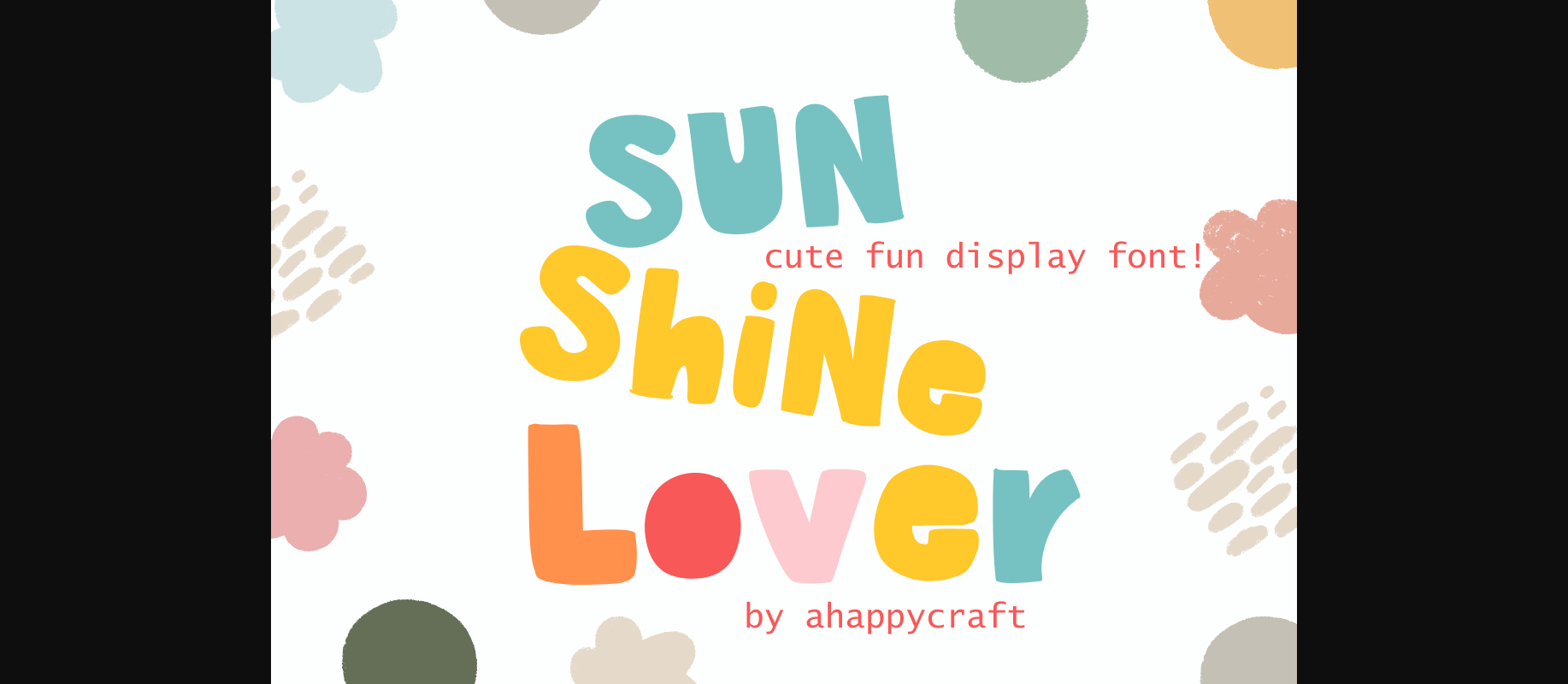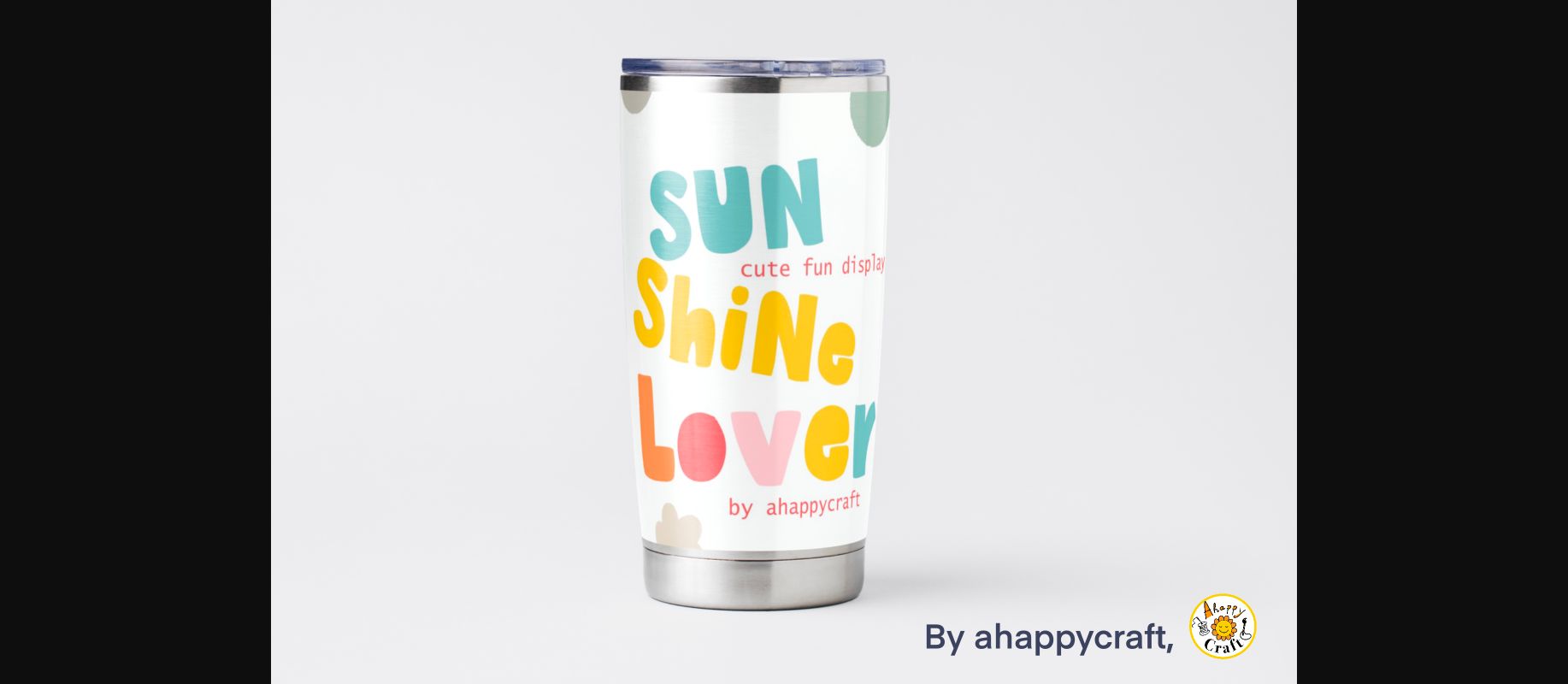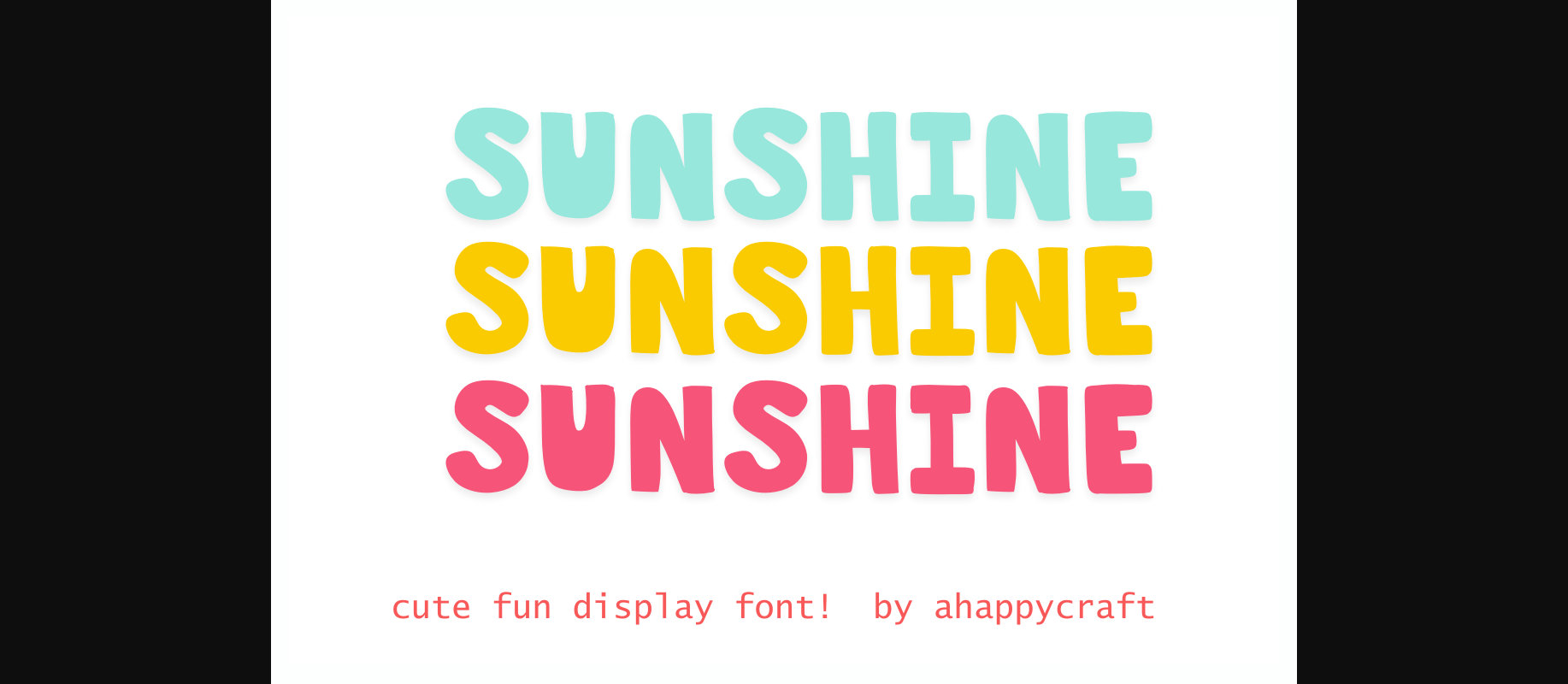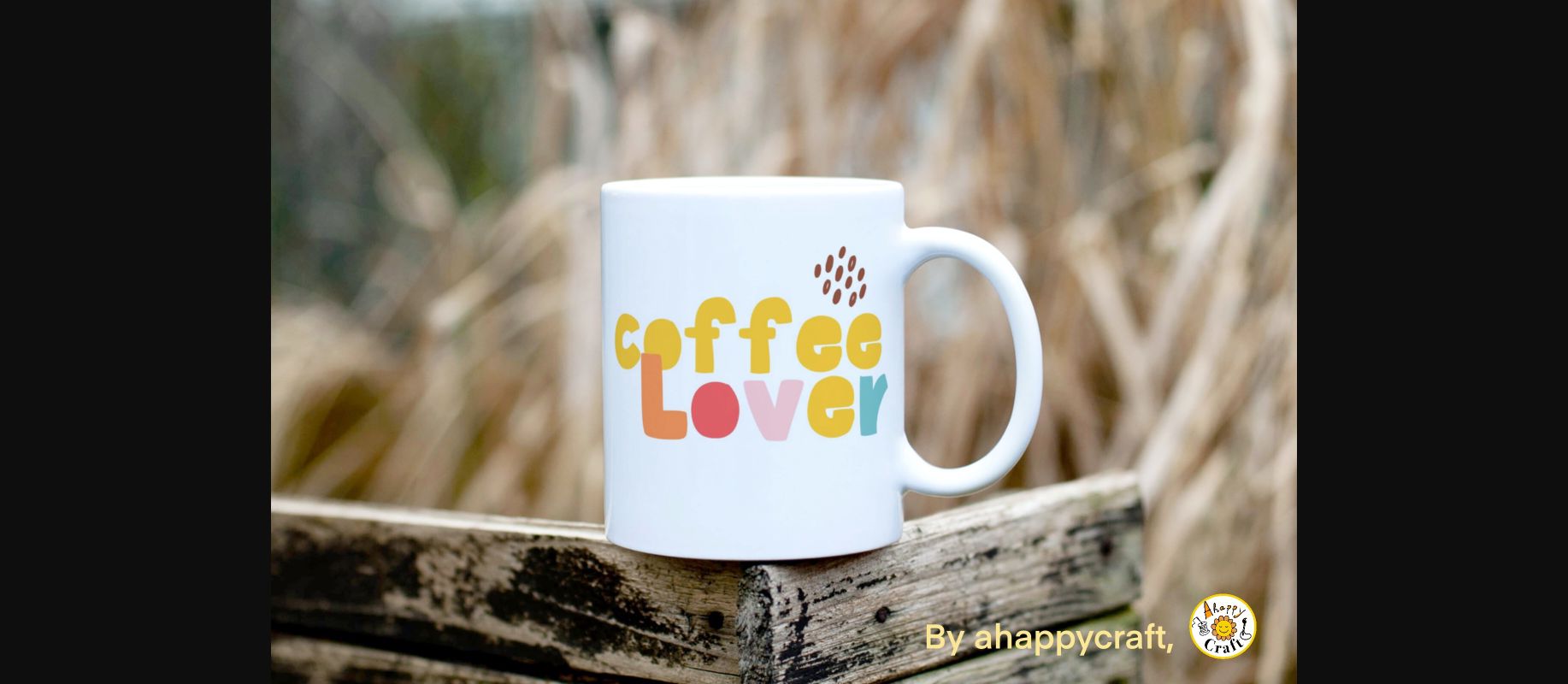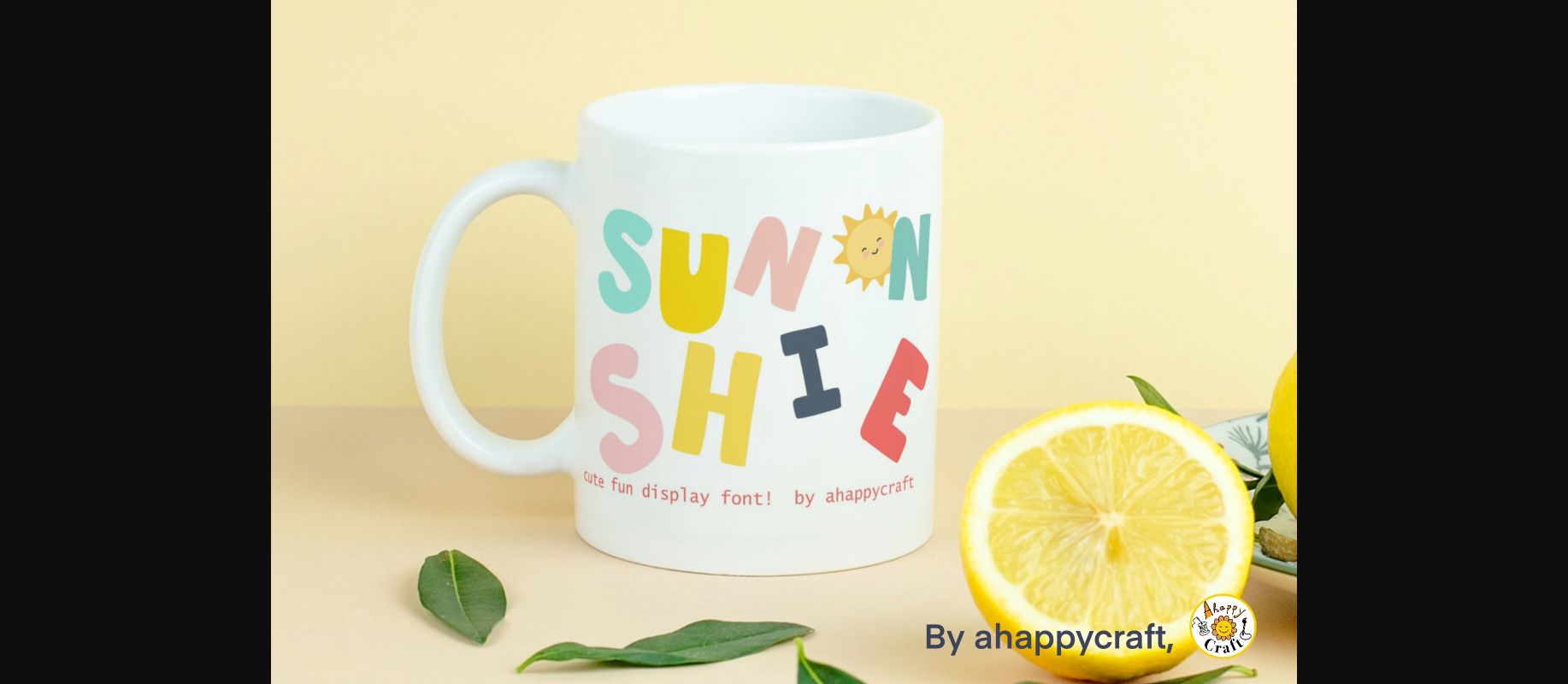
Sunshine Font
About Sunshine Font
Sunshine Lover is a fun and friendly display font. It is the perfect addition to your school related projects, social media, posters and your other creative projetcs.